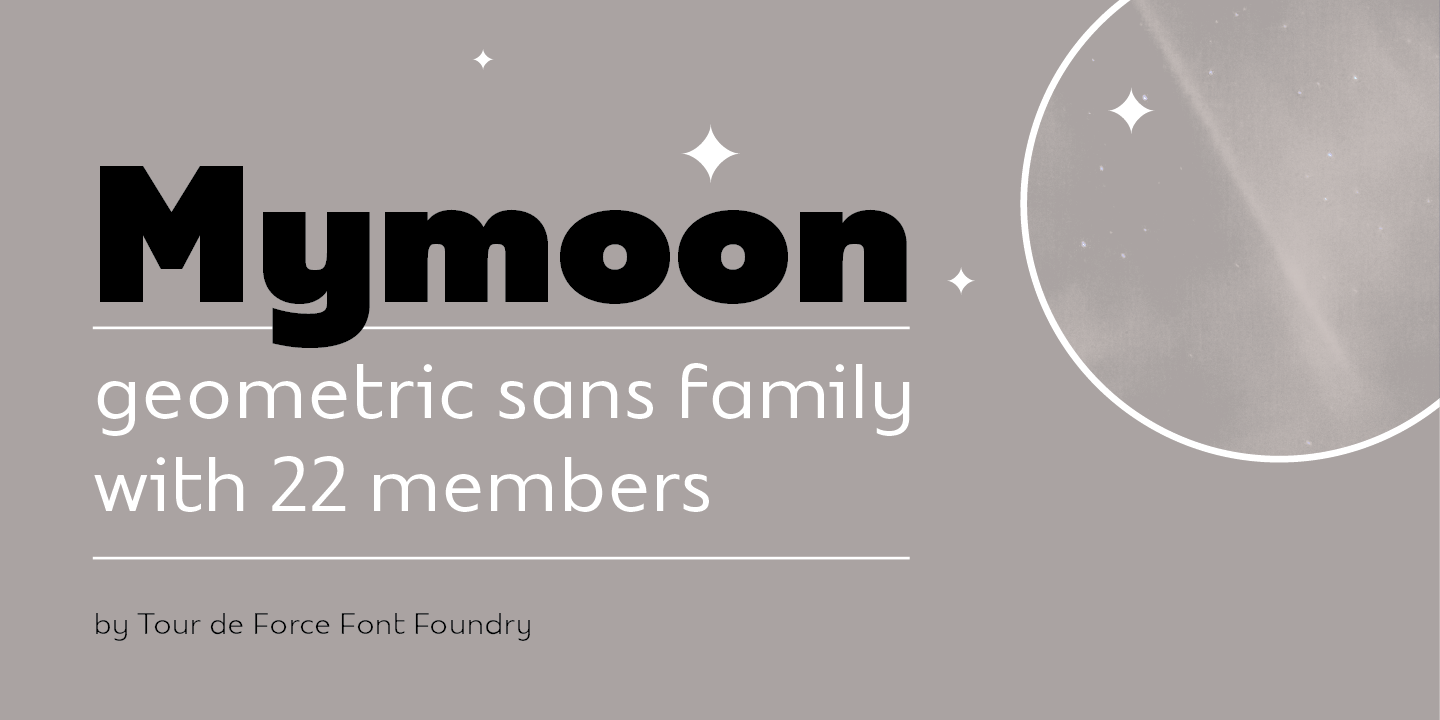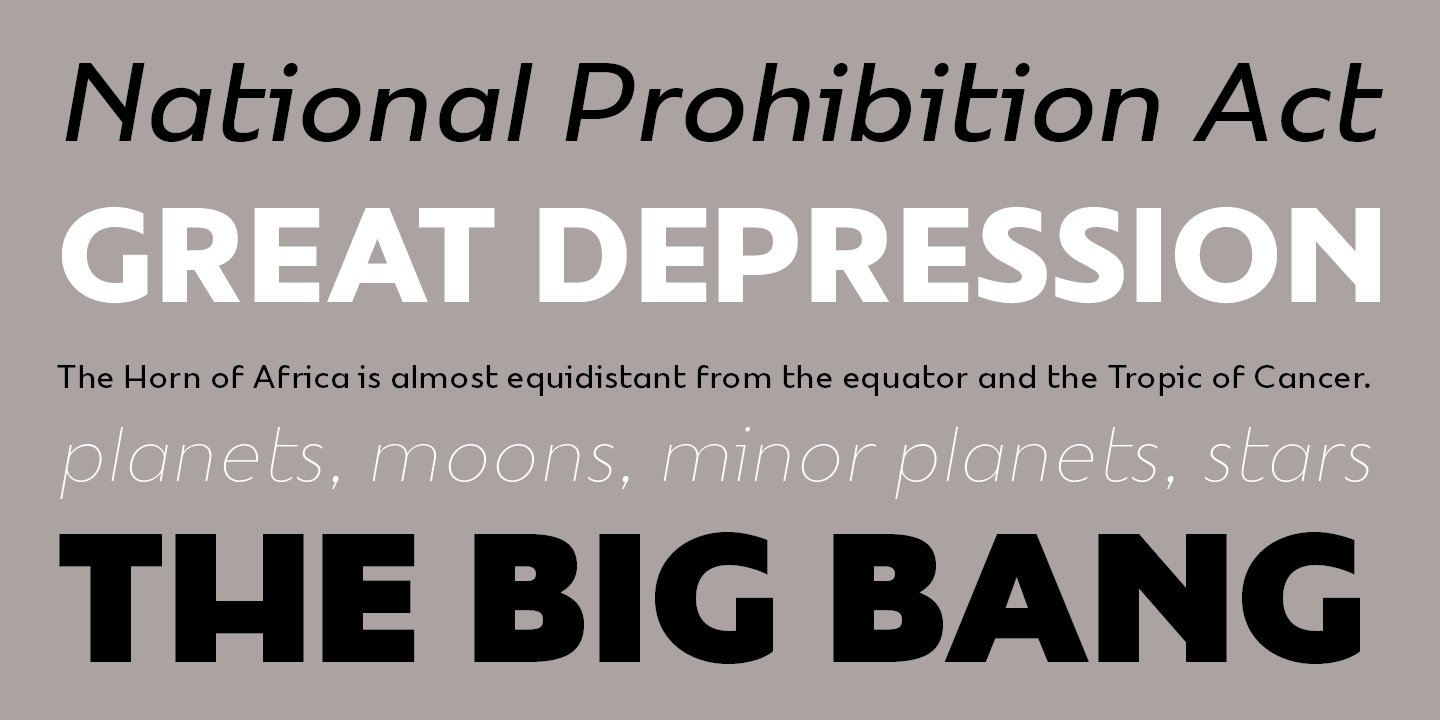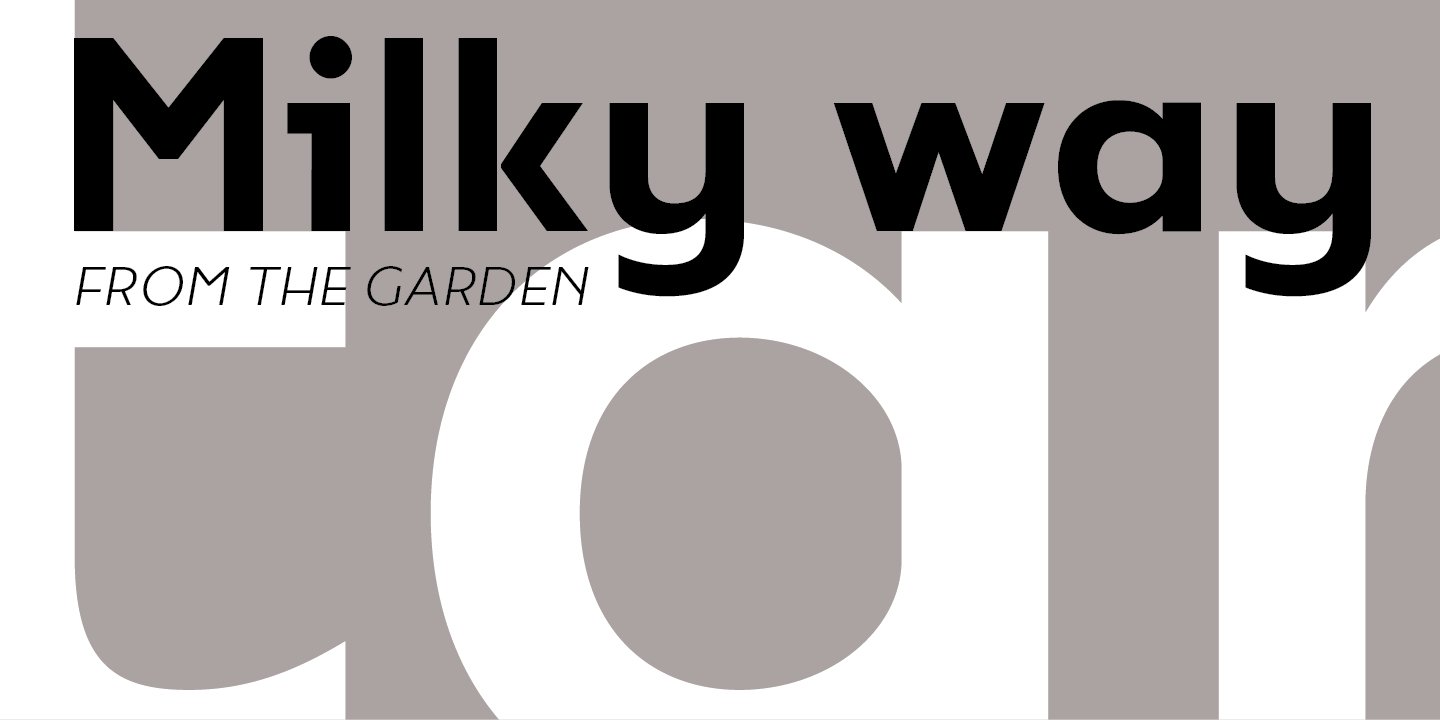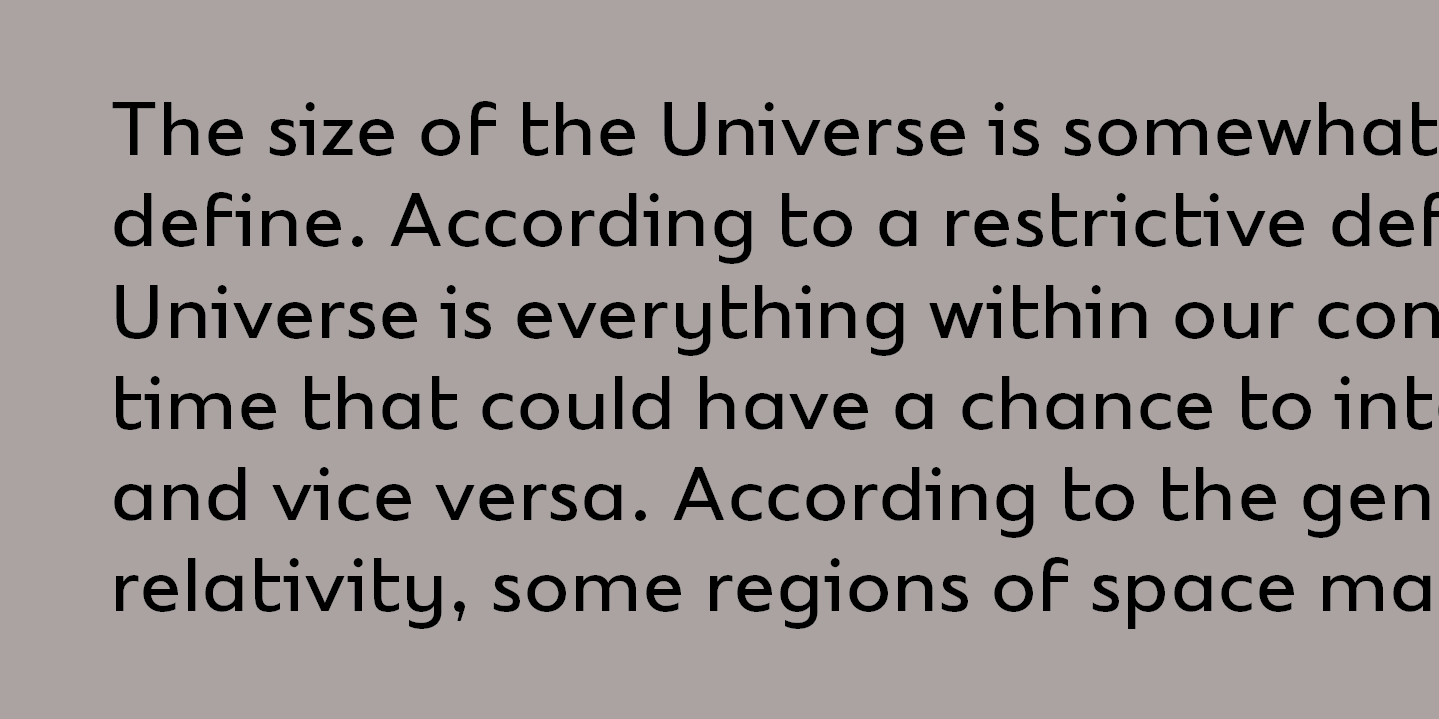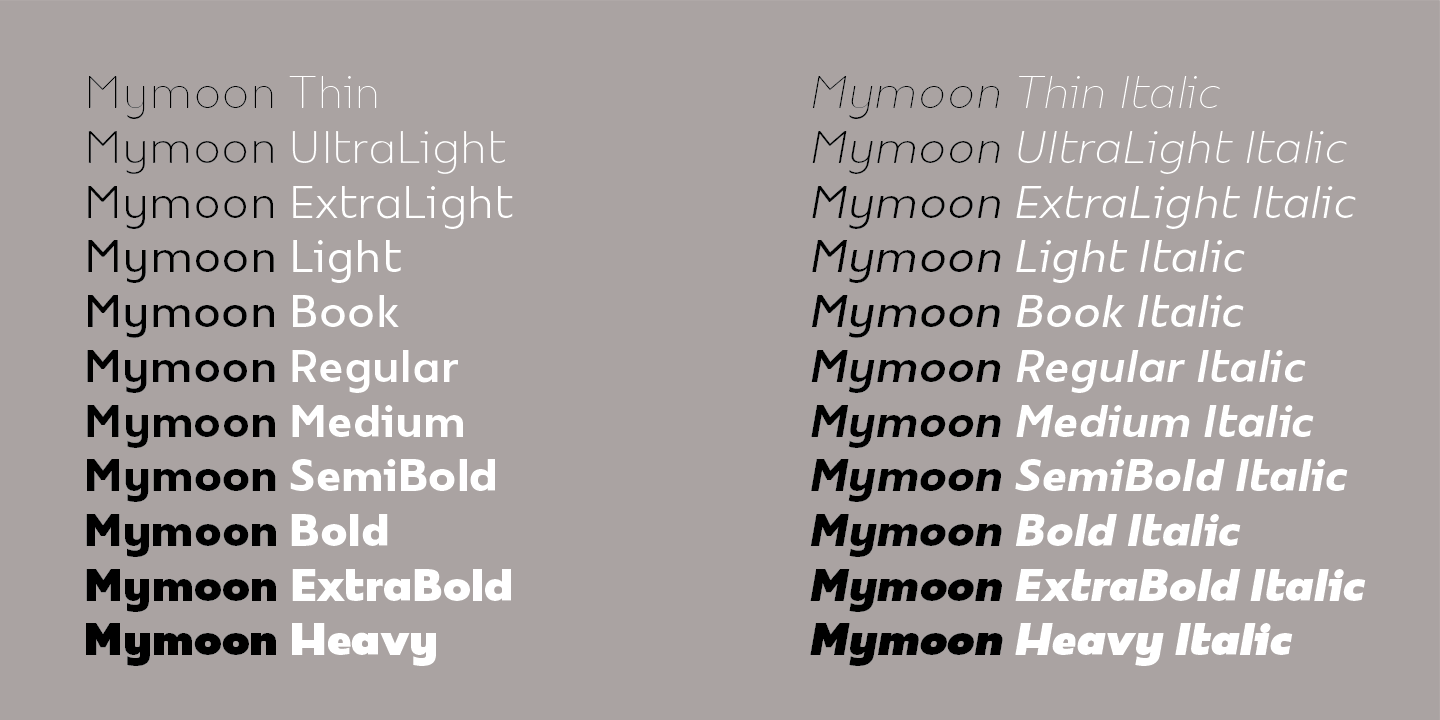
Mymoon is geometric modern sans serif family that comes in 22 weights. Aimed for universal use, in any size and in any media. It has slight retro characteristics and mostly neutral overall impression. With wide range of thickness, from Thin to Heavy, all weights are well synchronized to match ideally. Contains extended Latin character set with OT features such as OldStyle and Tabelar numerals and fractions.